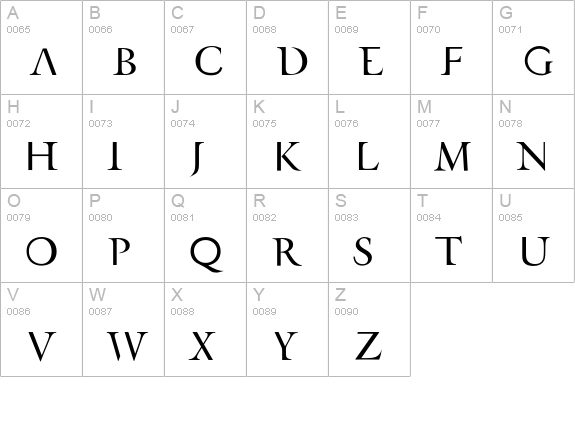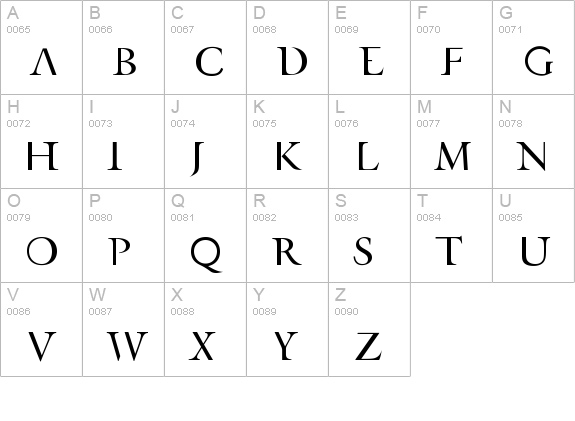
Retrospecta Font Details
Retrospecta font is a beautiful and versatile typeface that captures the essence of elegance and sophistication. With its clean lines and classic appeal, this font is perfect for a wide range of design projects. Retrospecta font is meticulously crafted, paying attention to every detail to ensure a seamless and visually pleasing experience for its users. The carefully designed letterforms exude a sense of timeless beauty, making it a perfect choice for branding, editorial design, packaging, and more. What makes Retrospecta font even more appealing is that it is available for free. Yes, you heard it right! This stunning typeface can be freely downloaded at FontsMarket.com, allowing designers and enthusiasts alike to enjoy its beauty without any cost. Whether you are a professional designer or a hobbyist, this free font offers you the opportunity to elevate your designs without breaking the bank. Retrospecta font is not just visually appealing but also incredibly versatile. Its wide range of weights, from light to bold, allows you to experiment and create various typographic compositions that suit your project's needs. The font's legibility and readability ensure that your message is conveyed effectively, no matter the size or context. With Retrospecta font, your designs will exude sophistication and elegance, captivating your audience and leaving a memorable impression. Its timeless beauty and versatility, combined with its availability as a free download at FontsMarket.com, make it a must-have for any designer's font library. So why wait? Head over to FontsMarket.com and download Retrospecta font for free today. Elevate your designs and unlock a world of creative possibilities with this stunning typeface.